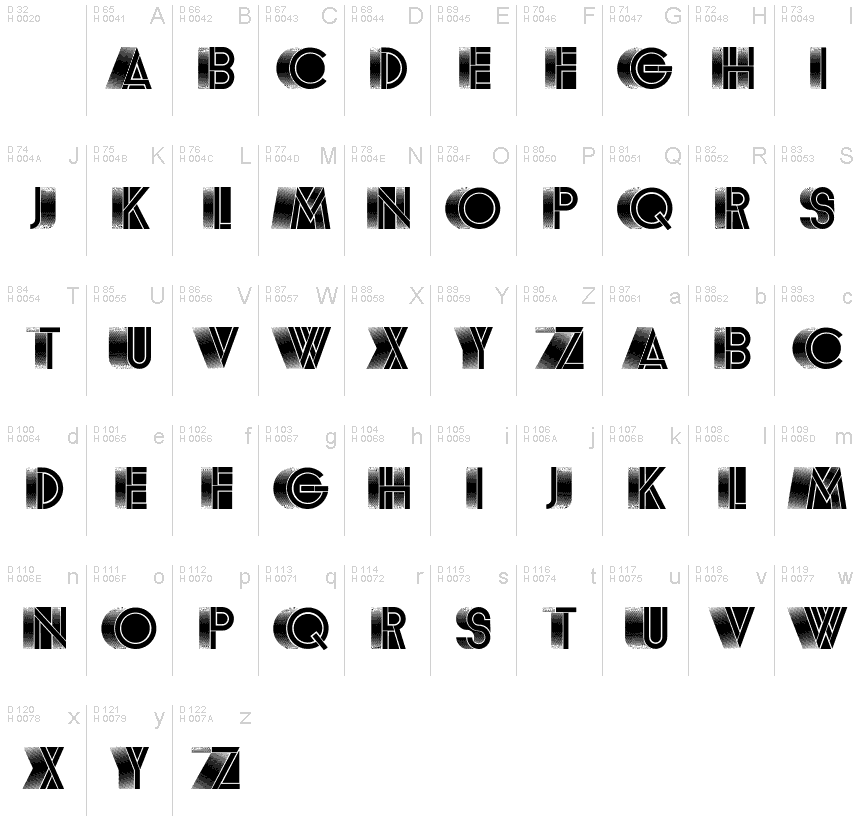
Rosemary Garden Filled Regular
Rosemary Garden Filled font is a 3d retro typeface designed by Vladimir Nikolic.
"Rosemary Garden" comes in Regular, Light and Filled variant!